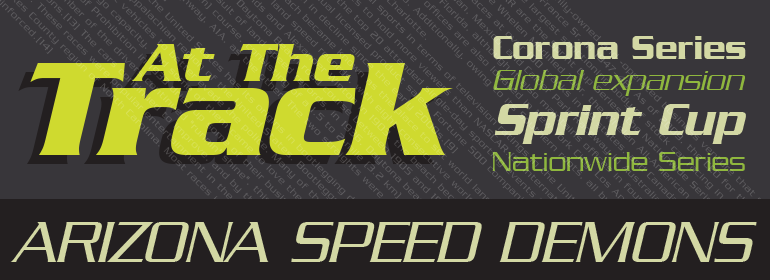
Serpentine™
Dick Jensen (USA) designed Serpentine, is a contemporary-looking display font, for the Visual Graphics Corporation in 1972. With the rise of digital typesetting and desktop publishing, this typeface quickly became both popular and ubiquitous. This dynamic, wide, boxy design is identifiable via tiny triangular swellings at the stroke endings - what might be called semi-serifs. Serpentine is available in six different font styles: Light, Light Oblique, Medium, Medium Oblique, Bold, and Bold Oblique.
Serpentine" is a greenish rock that sometimes resembles a serpent's skin, and is often used as a decorative stone in architecture. Though this font doesn't seem at all snaky or sinuous, it does have an architectural, stone-like solidity. The subtle, almost non-existent curves and semi-serifs keep it from being too stern or cold. Although the underlying strokes of each weight are similar, the six members of the Serpentine font family all present their own individual personalities. Serpentine Light lends itself well to text for onscreen displays, for instance, while the numbers from typeface's heavier weights are seen around the world on soccer jerseys! Additionally, the oblique styles convey a streamlined sense of speed, furthermore lending Serpentine well to sport and athletic applications (especially the faster, high-speed varieties).
Because of its 1970s pedigree, Serpentine has come to be known as a genuine "retro" face. This makes the typeface even more appropriate for display usage, in applications such as logo design, magazine headlines, and party flyers.